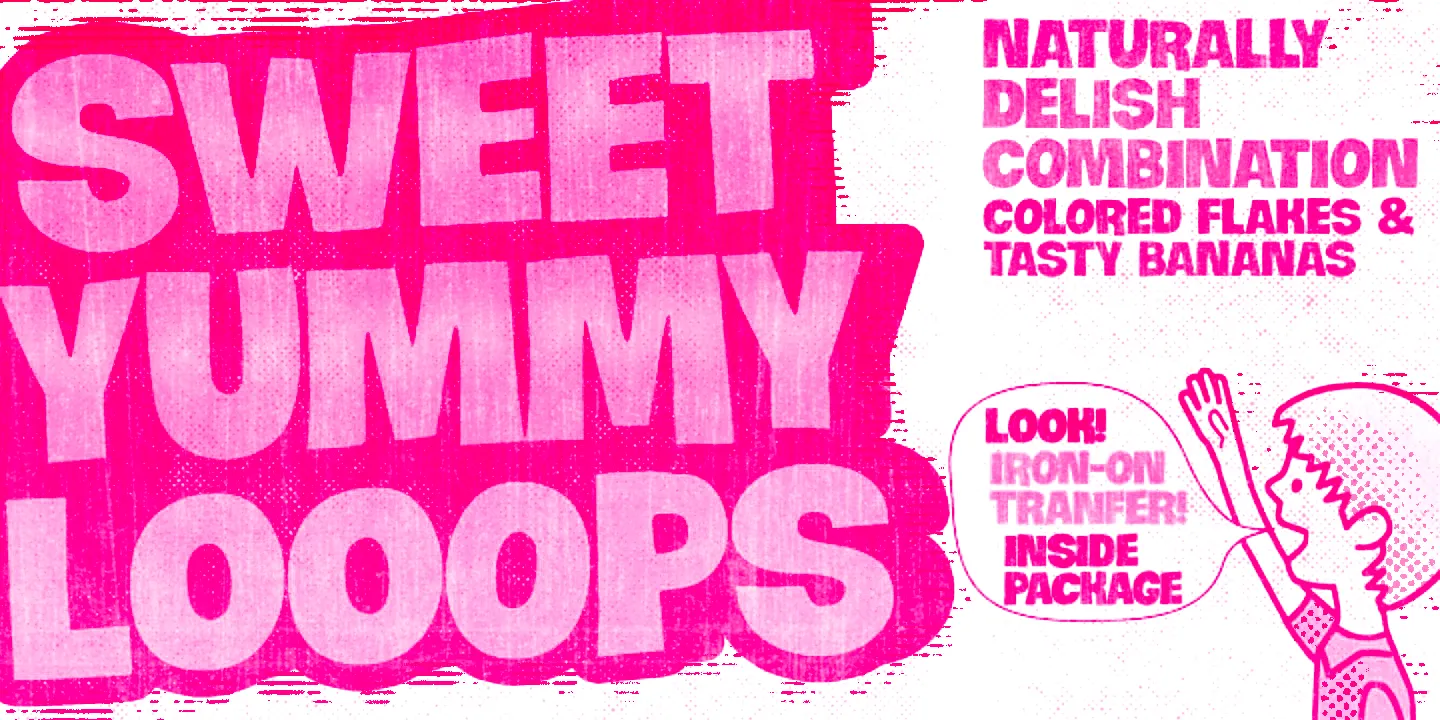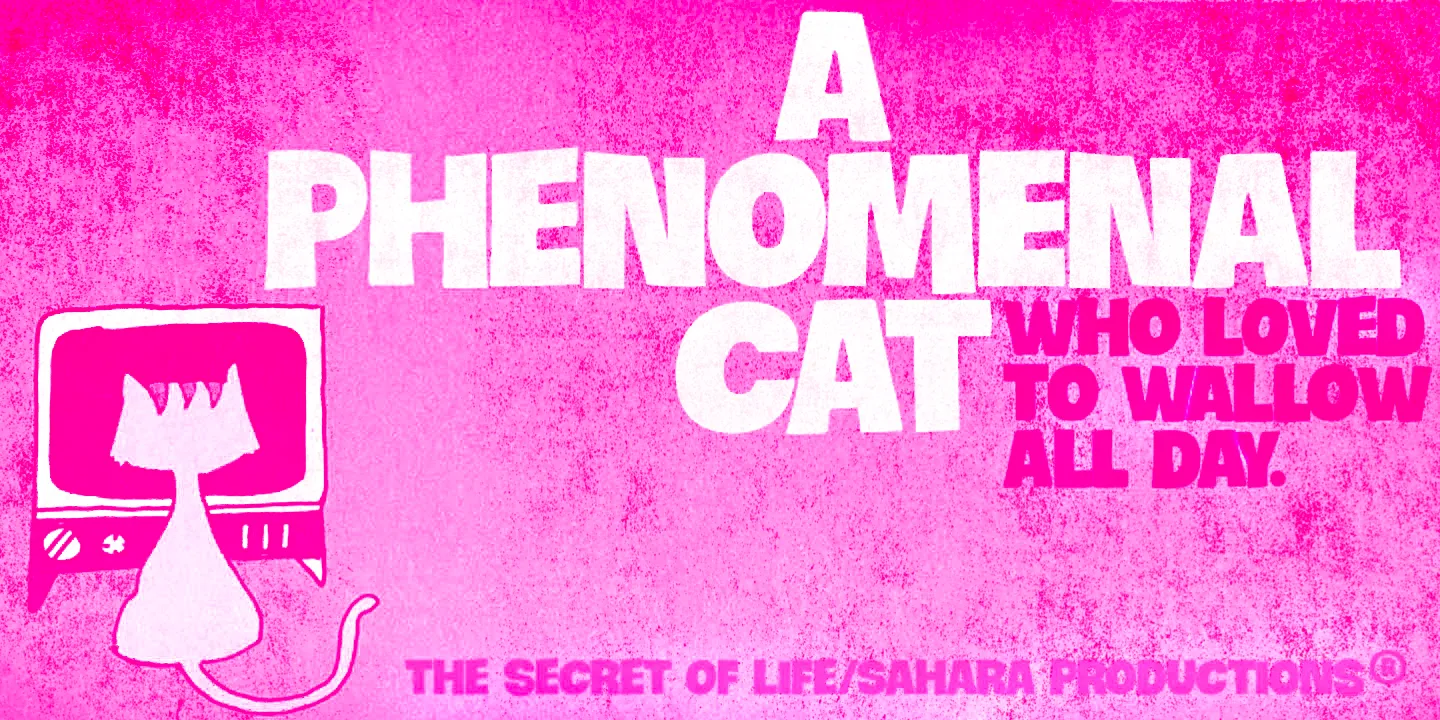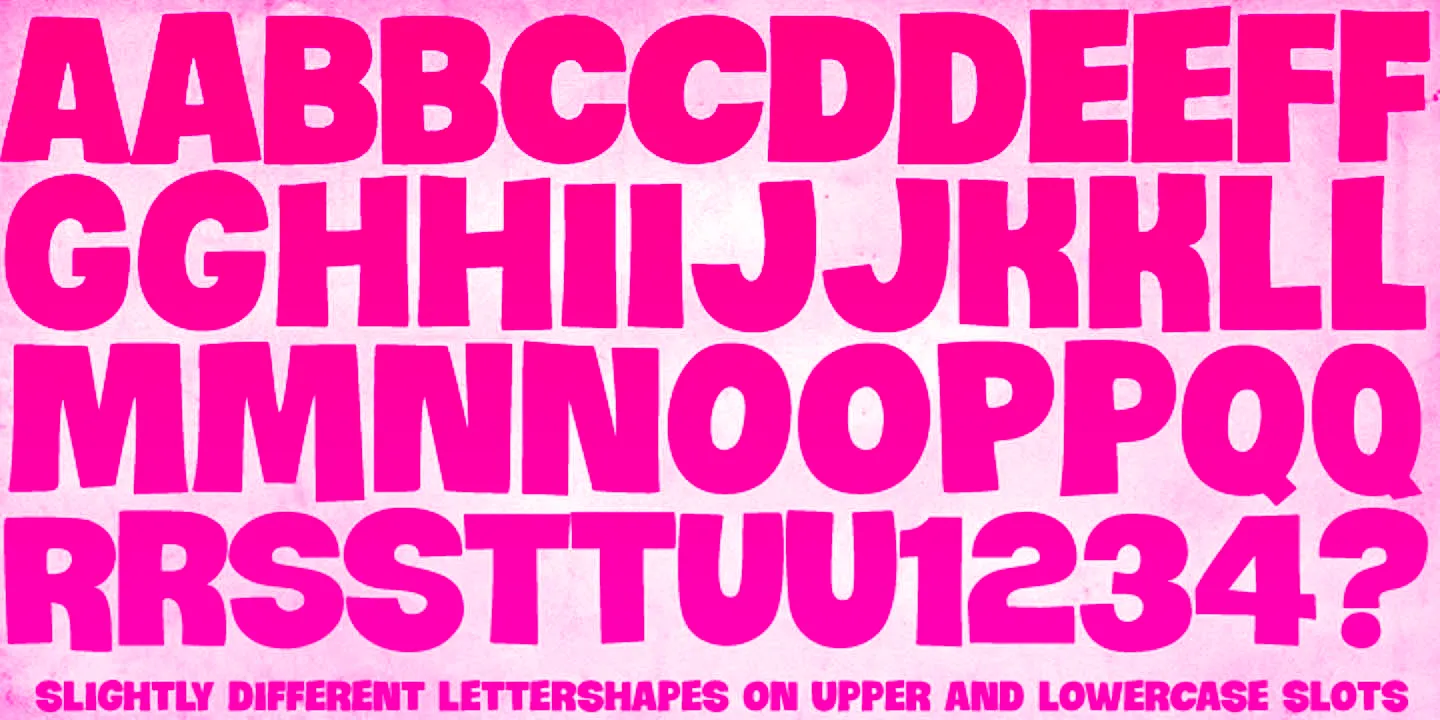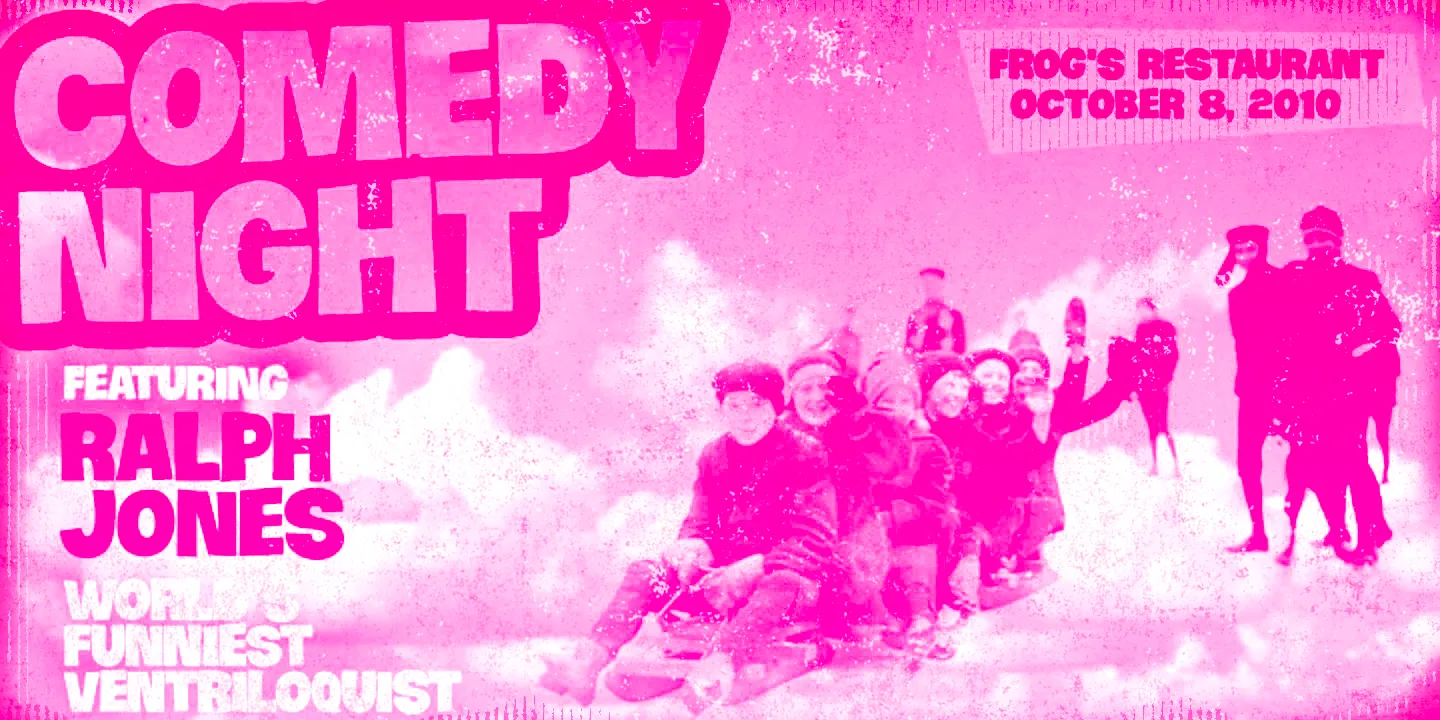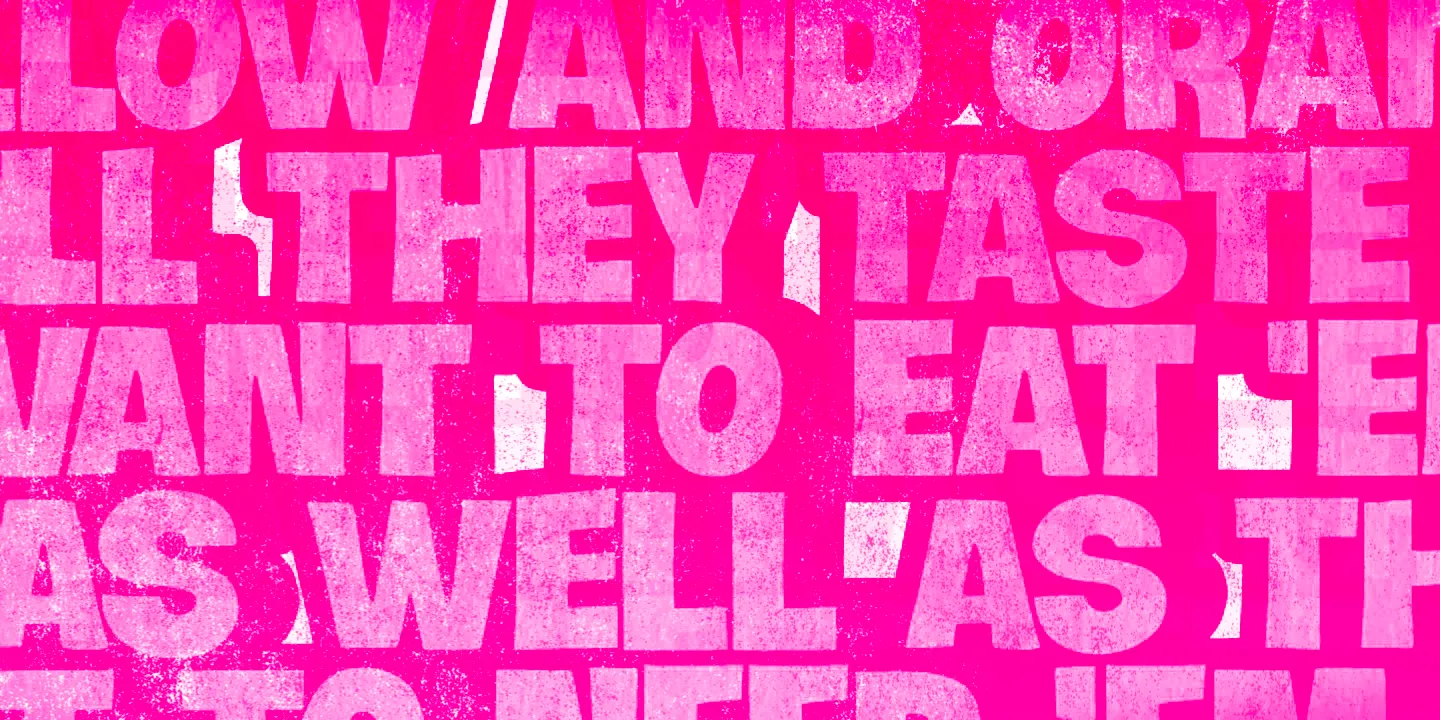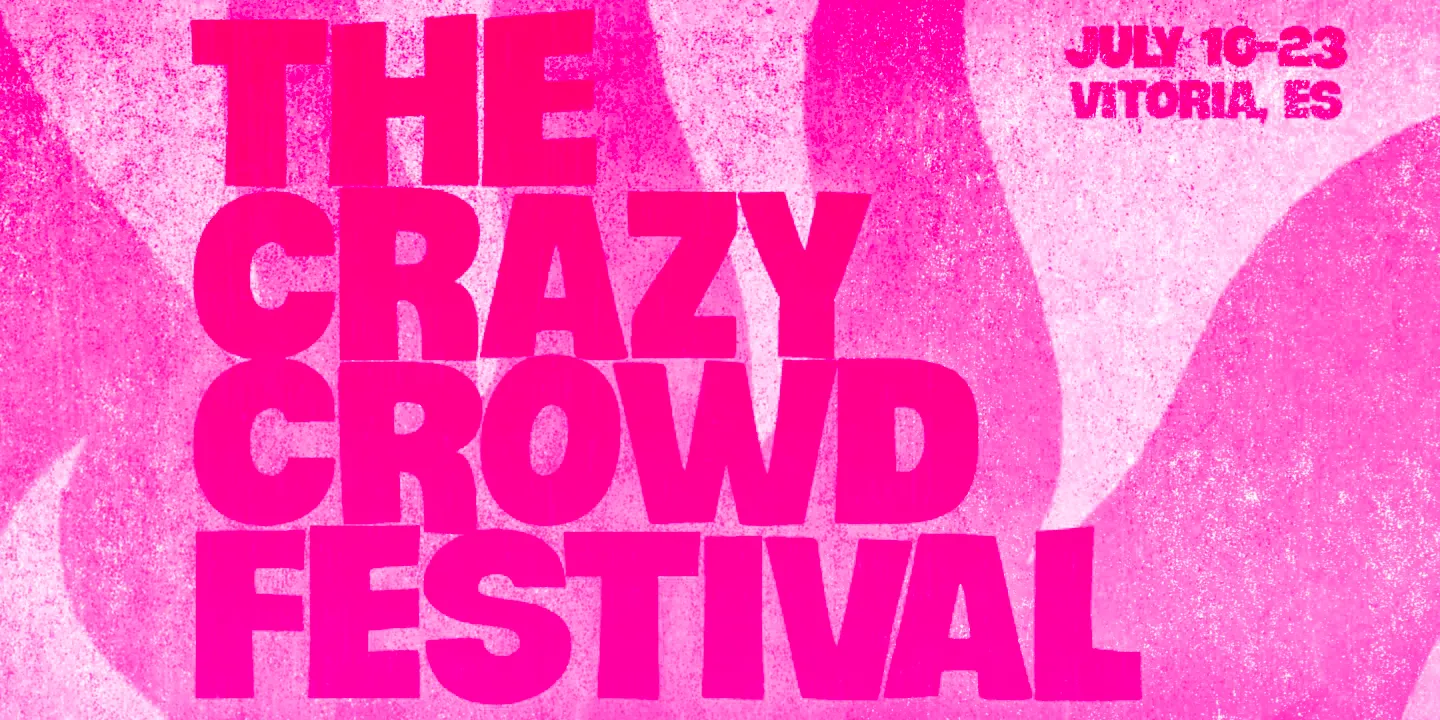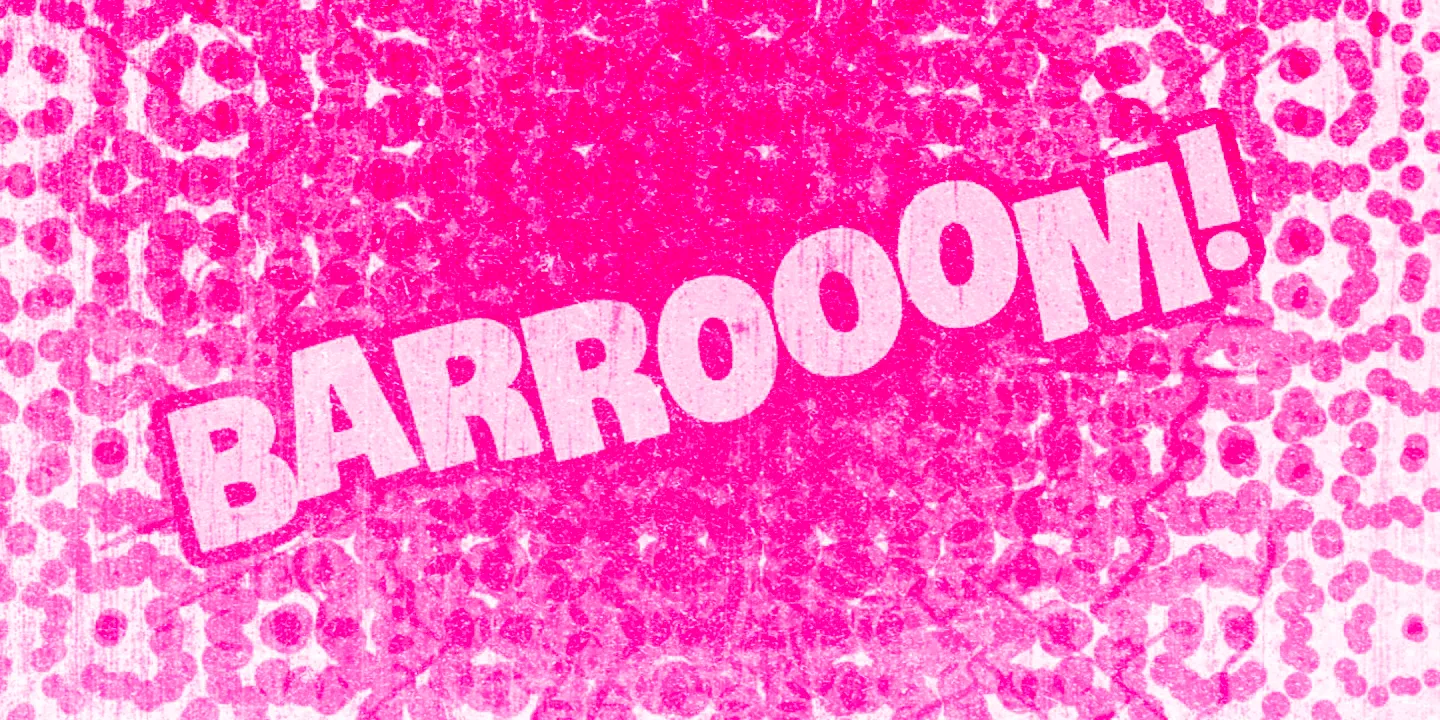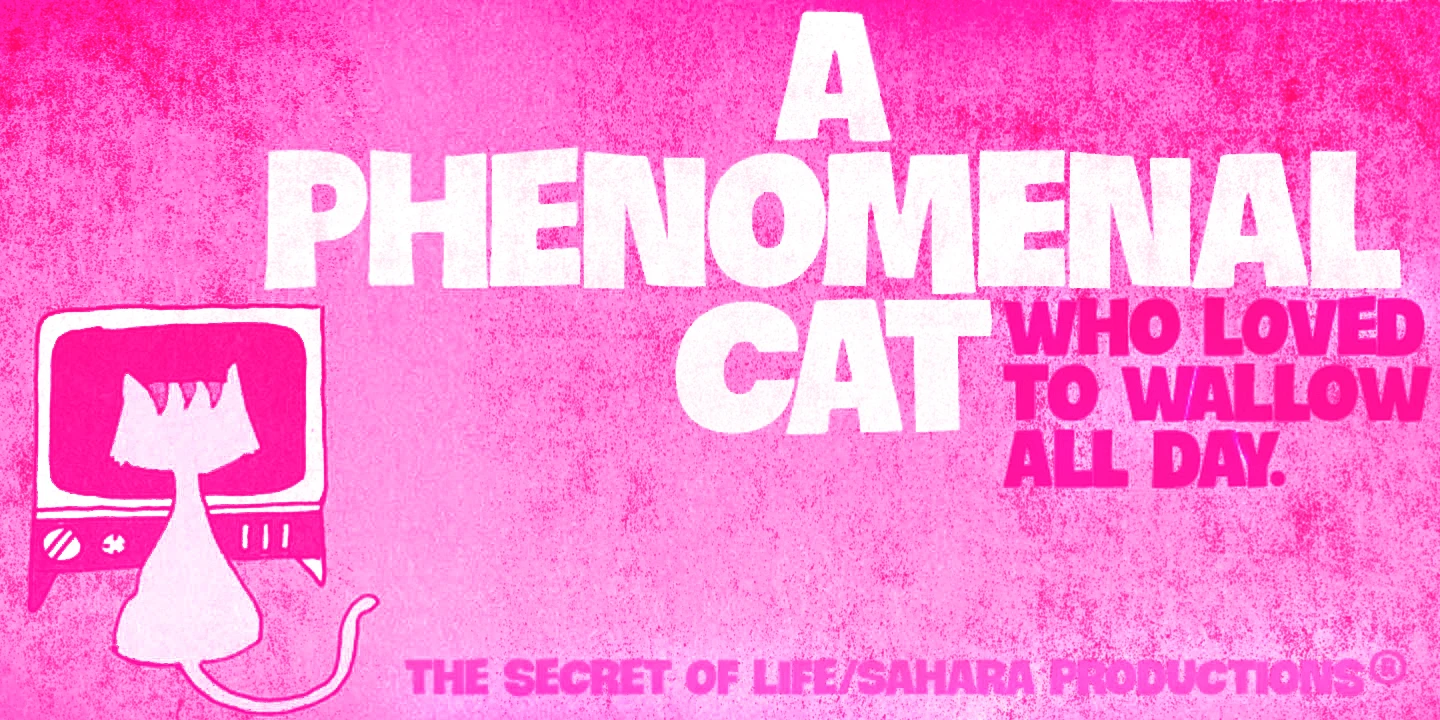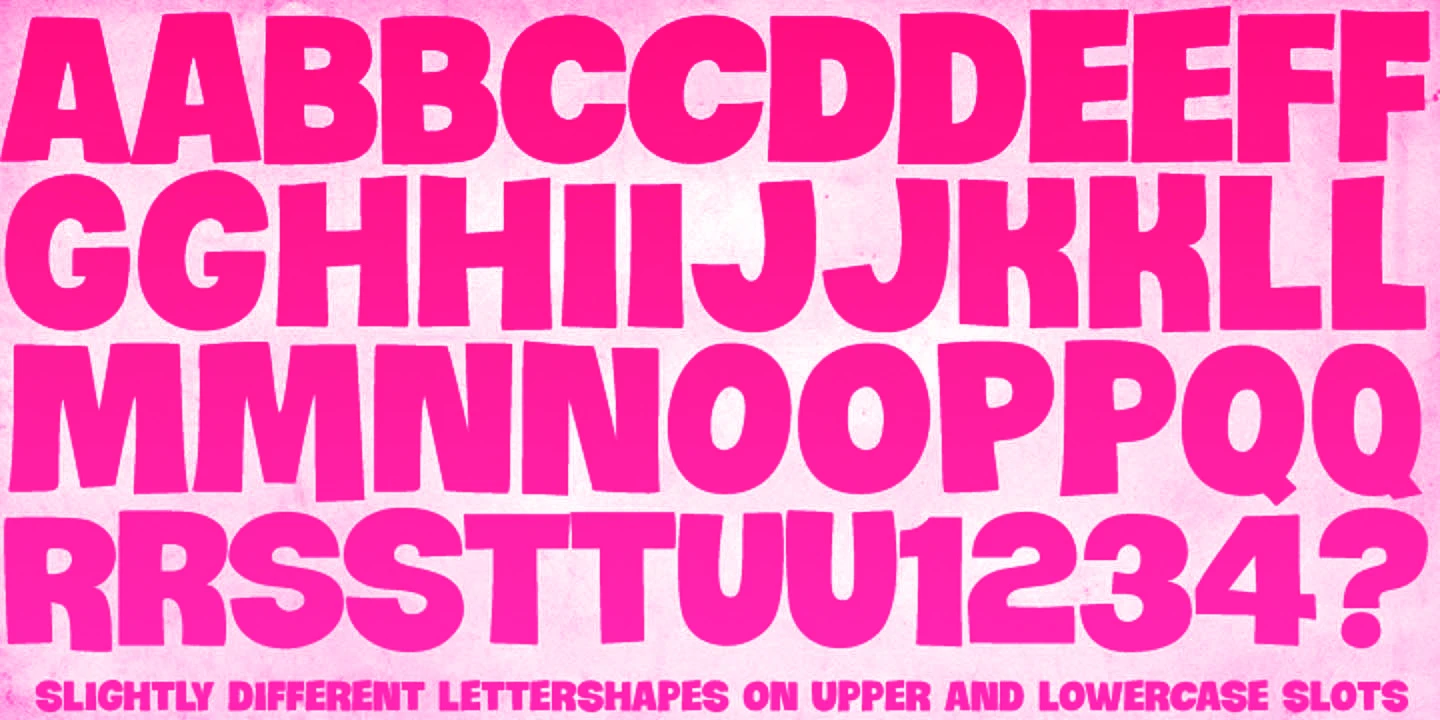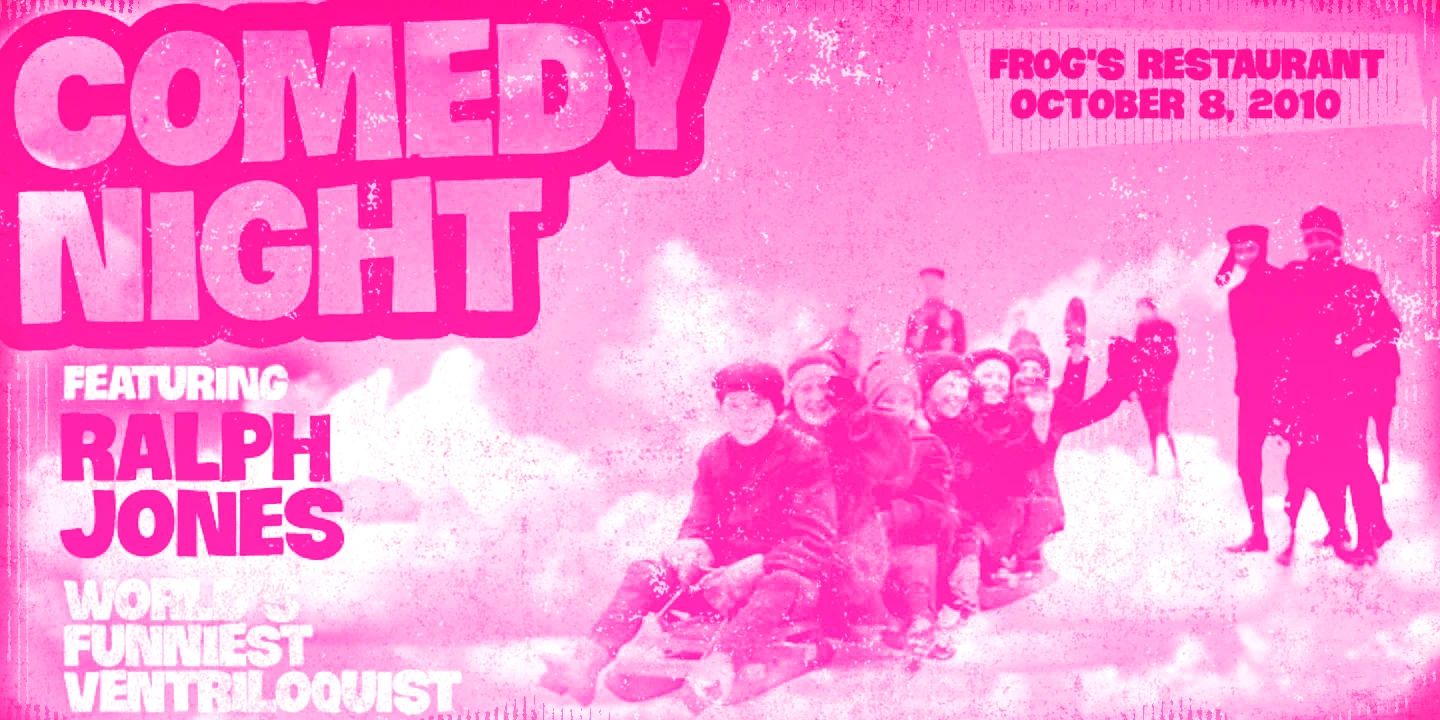
Crocante
Crocante is a bold, all-caps display sans with a spirited, good-humored personality. Each letter comes in two subtly different versions, giving the text a lively, spontaneous feel. Its chunky, high-impact shapes make it ideal for posters, food packaging, children’s books, or any design that calls for bold flavor. Whether loud, playful, or just a little wild, Crocante brings energy to every letter. Guaranteed!